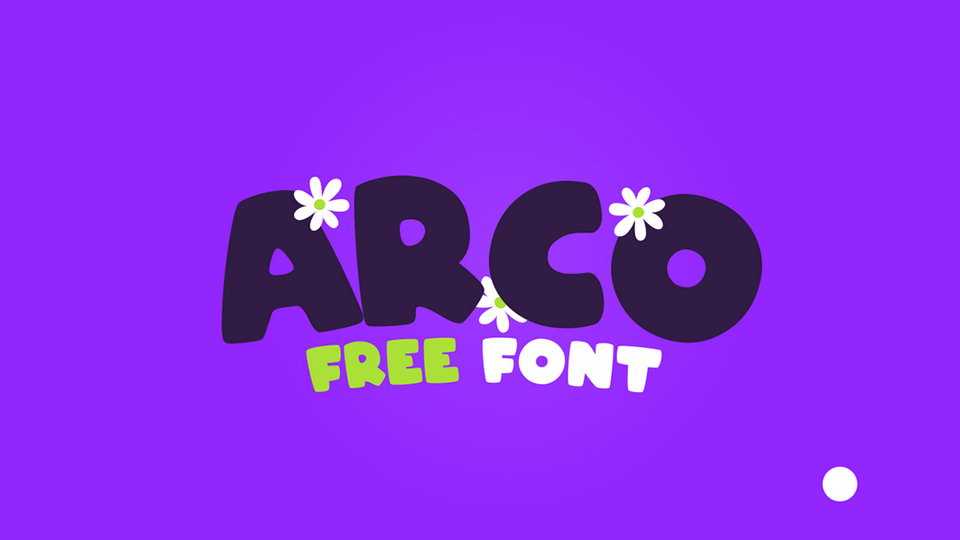
Download Arco font, a funny and friendly display font with rounded edges and more than 80 characters, its alphabets in uppercase. Arco is perfect for headlines, craft and kids design, logos, branding, packaging, apparel and more.
Designer: Rafael Olivo